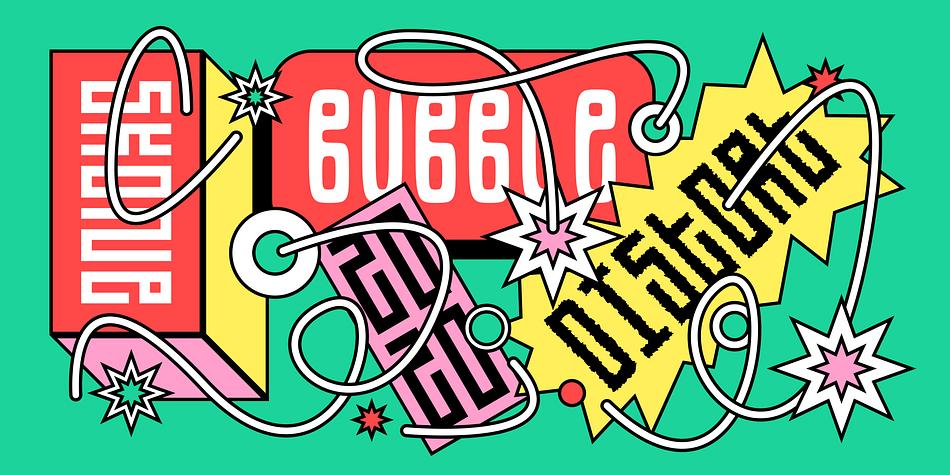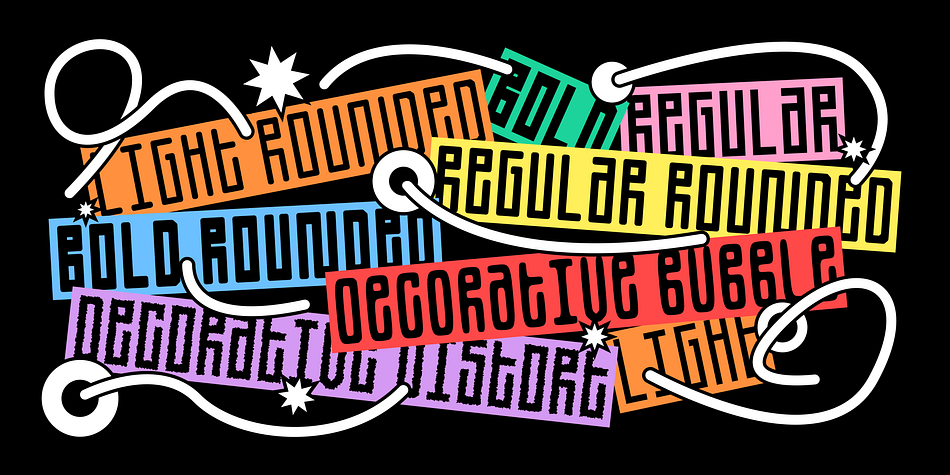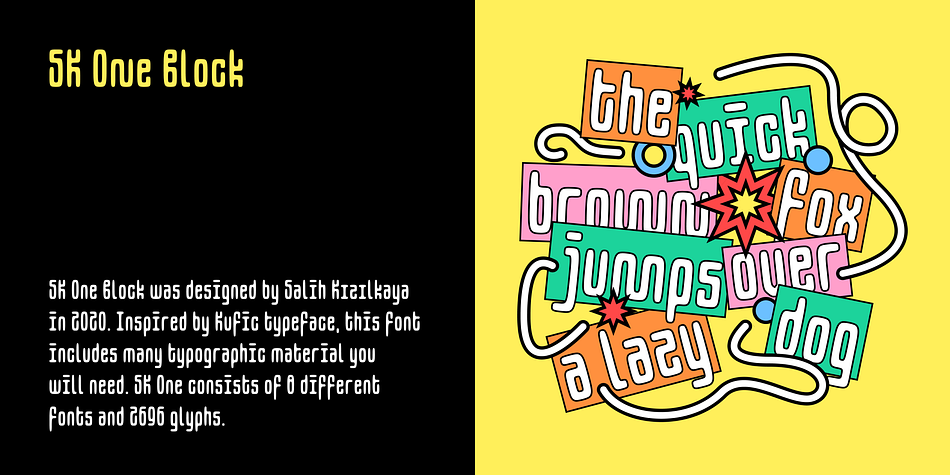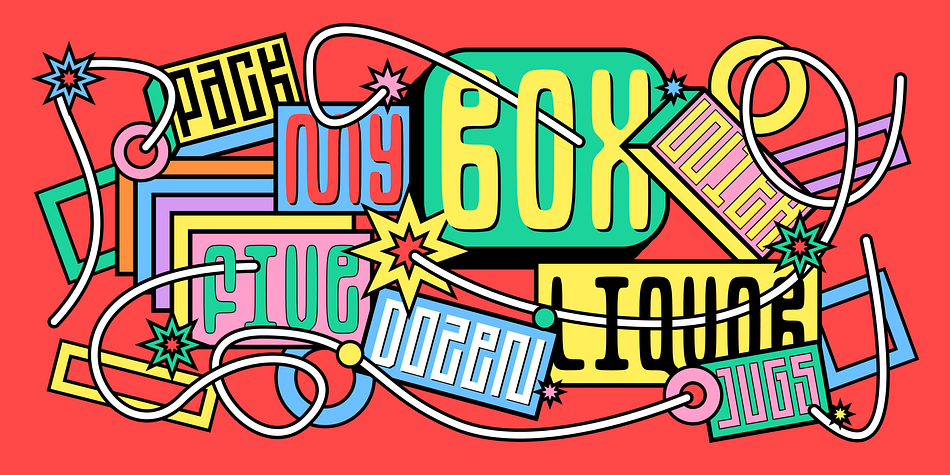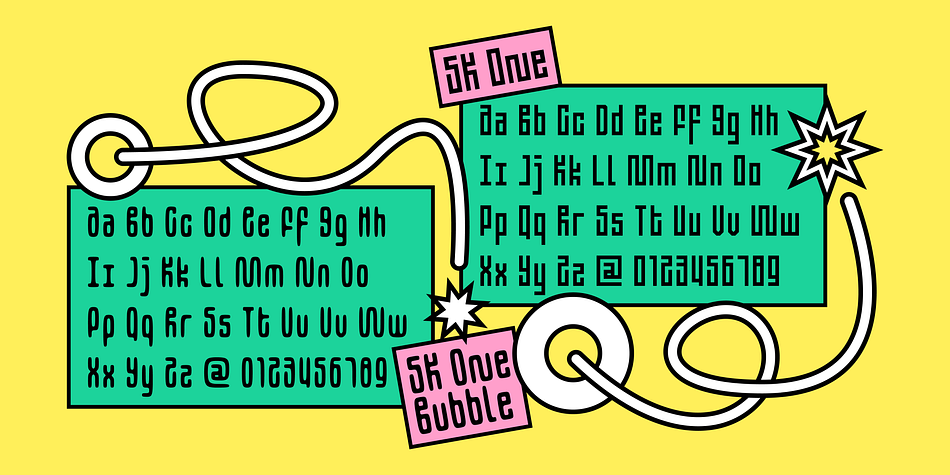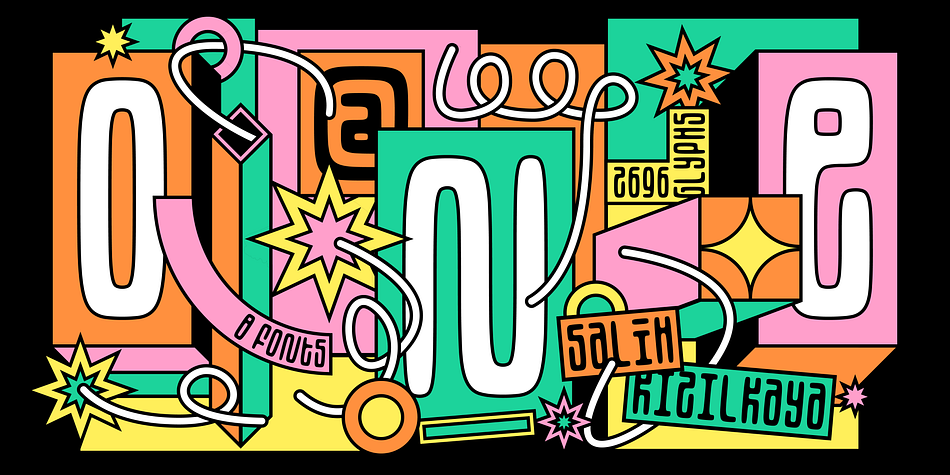
Designed by Salih Kizilkaya, SK One Block is a display sans font family. This typeface has eight styles and was published by Salih Kizilkaya.
SK One Block was designed by Salih Kızılkaya in 2020. Inspired by Kufic typeface, this font includes many typographic material you will need. SK One consists of 8 different fonts and 2696 glyphs.